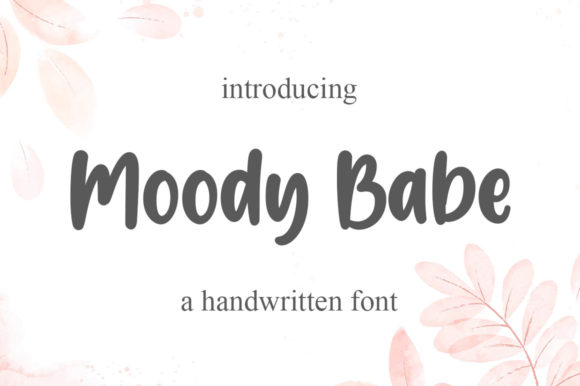
Introducing Moody Babe Font, the delightful display font that brings warmth and charm to your creative projects! Step into a world of heartfelt expression and captivating designs with Moody Babe, the perfect font for Valentine's letters, heartfelt messages, and educational materials.
Enter a realm of visual allure and emotional connection with Moody Babe, a font crafted to evoke a sense of authenticity and realism in your designs. Each letter dances with a lively personality, adding a personal touch to your chalkboard quotes, teaching resources, and heartfelt messages.
With Moody Babe, every word carries a story, and every design exudes a sense of genuine emotion. Its simple yet captivating letterforms create a visual symphony that speaks to the heart, making it the ideal choice for Valentine's Day letters, romantic invitations, and heartfelt messages.
Moody Babe isn't just a font; it's an experience that transforms your words into captivating works of art. Its charm and authenticity will leave a lasting impression on your audience, whether it's in the classroom, on social media, or in the depths of your creative projects.